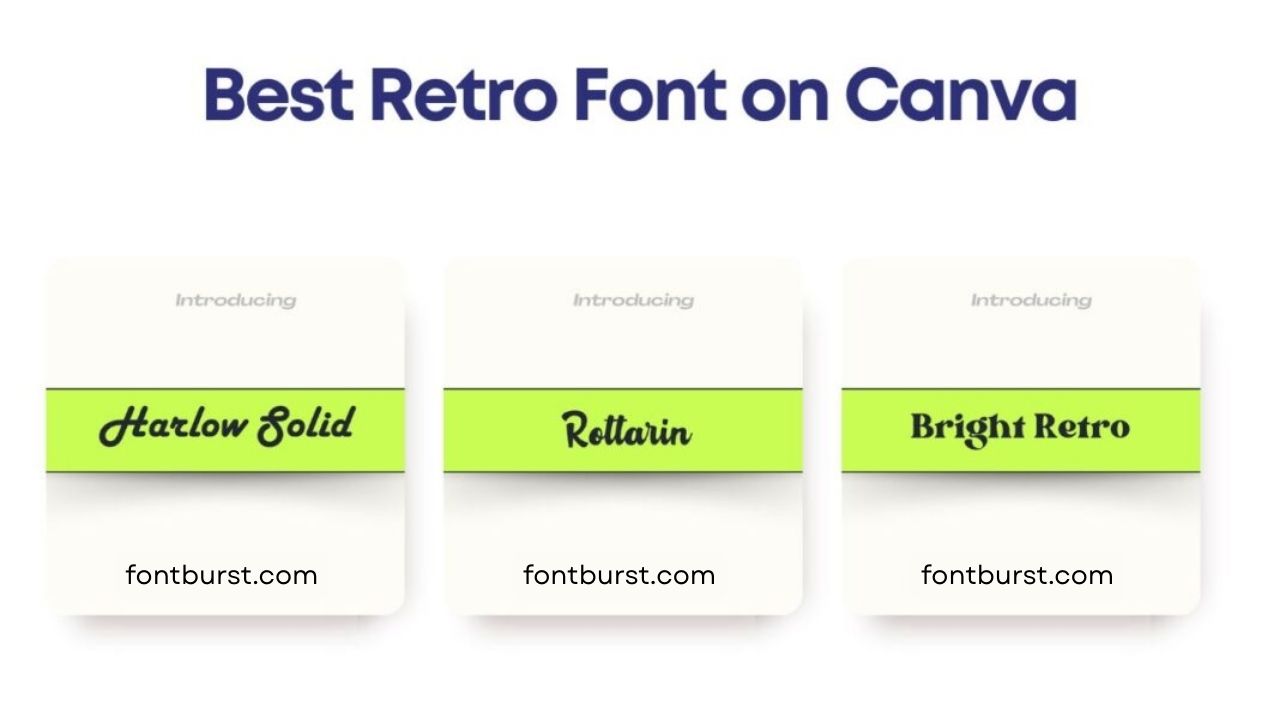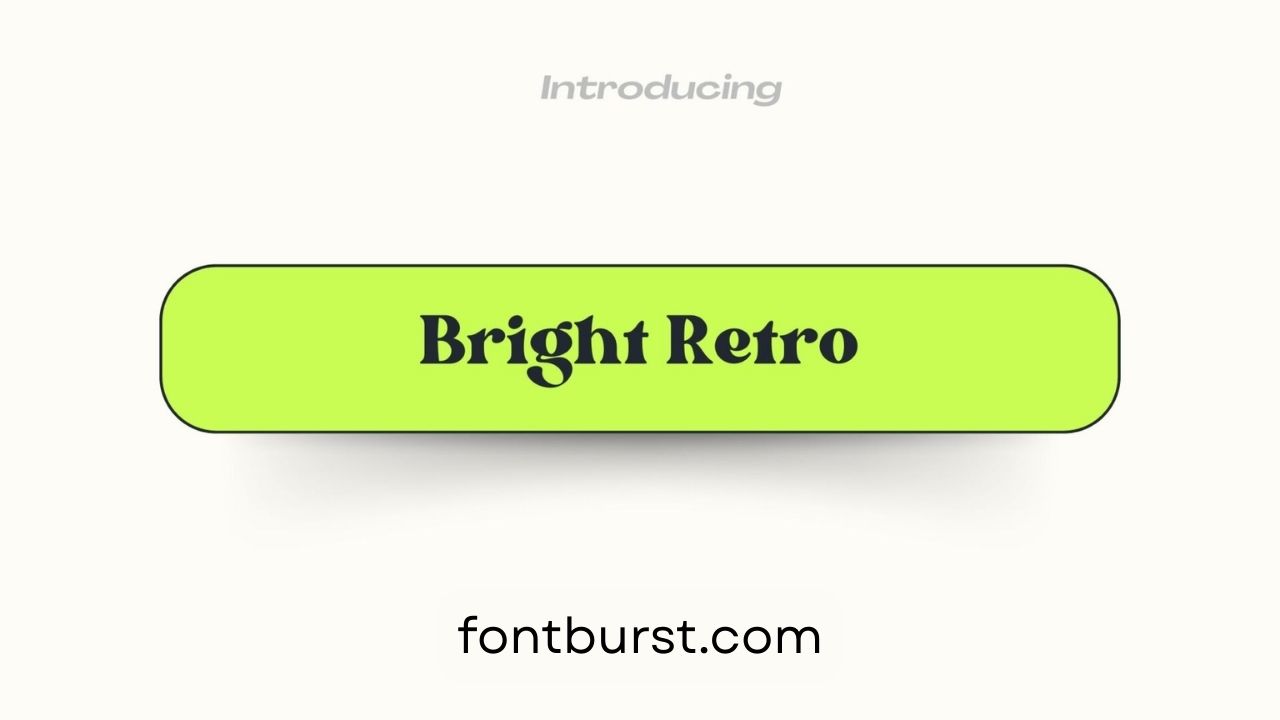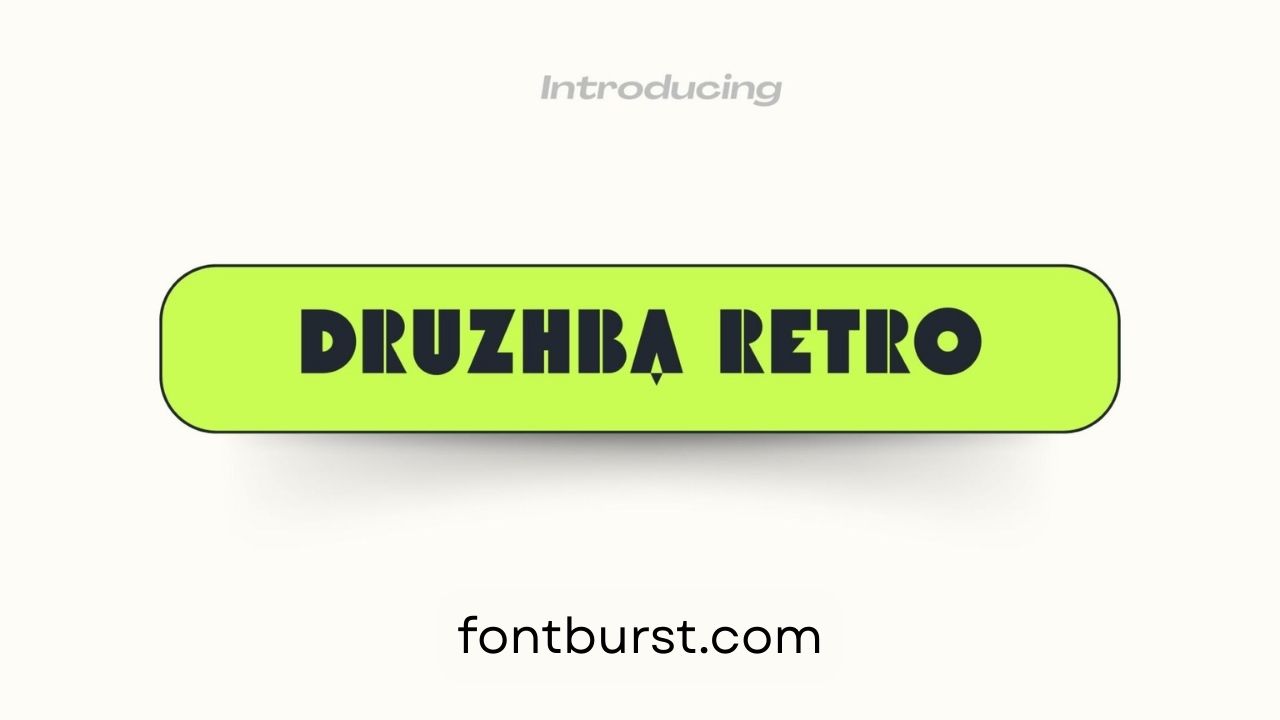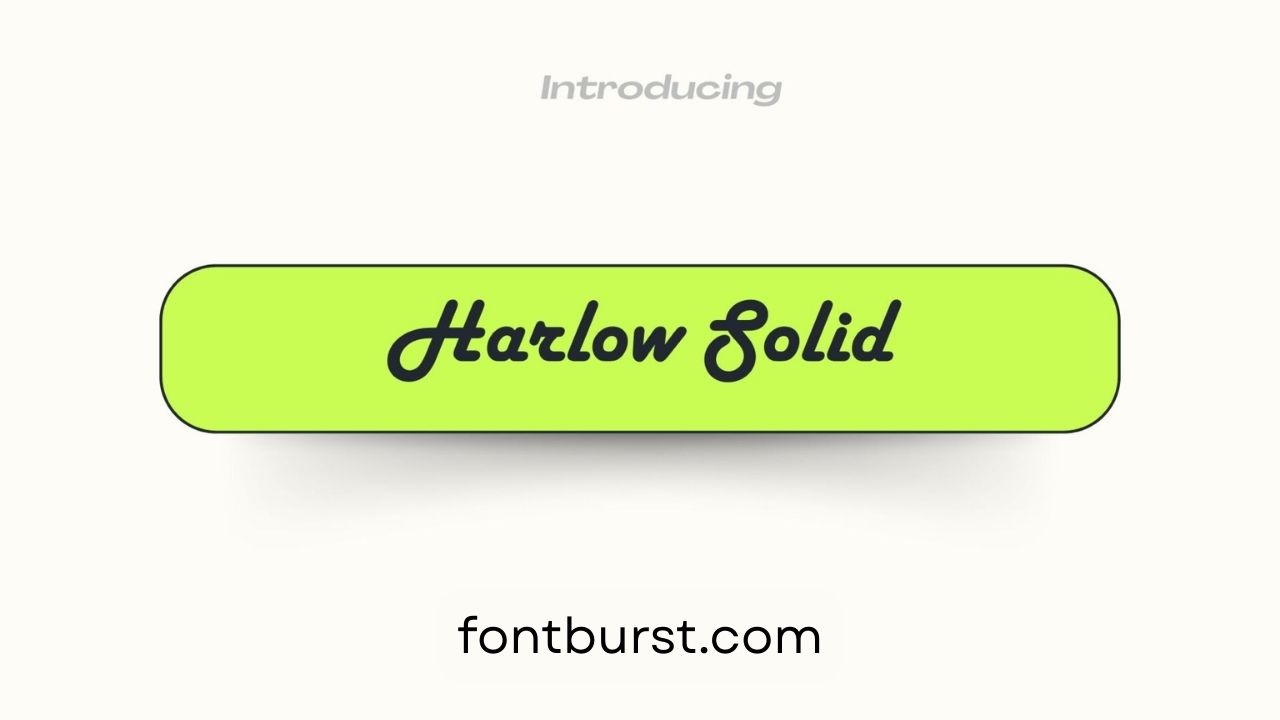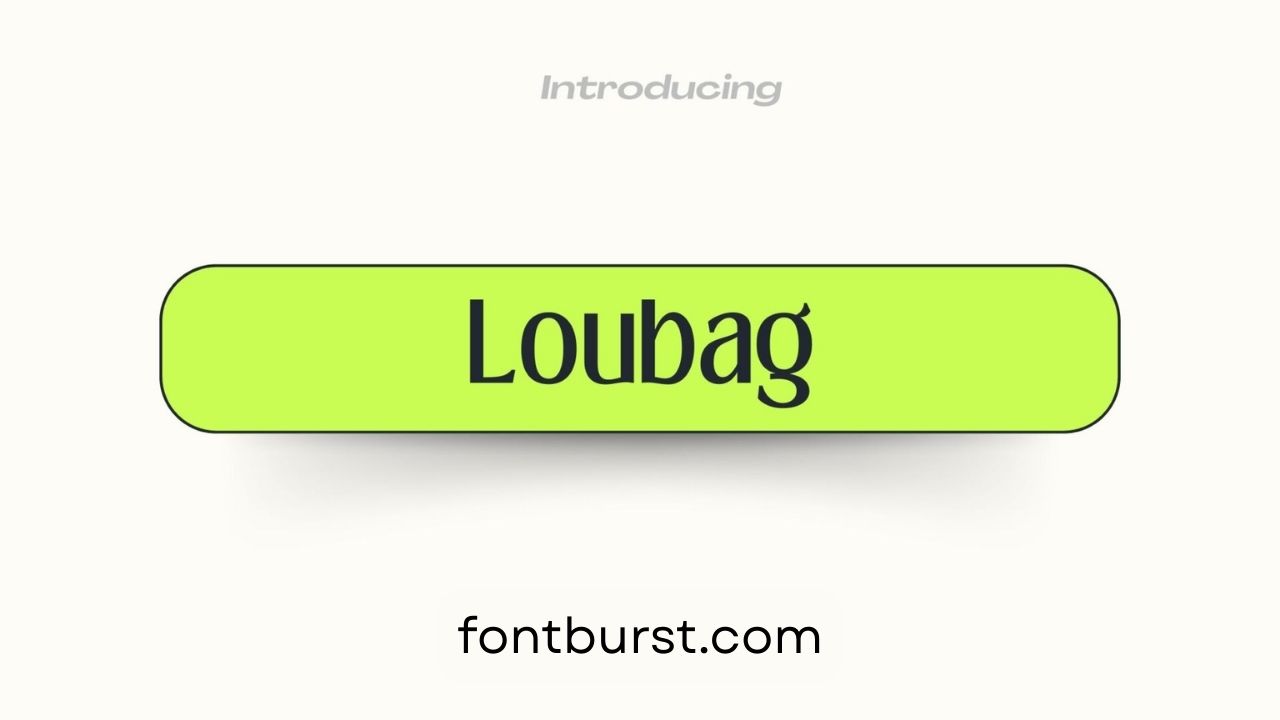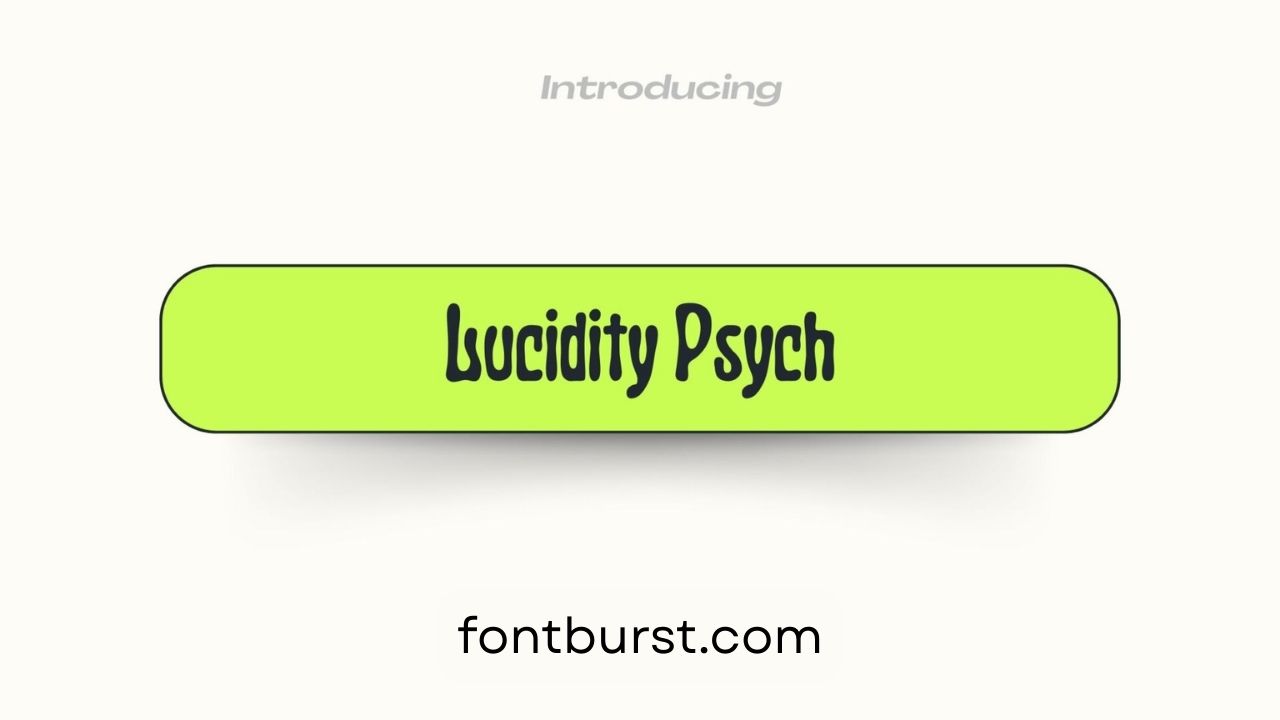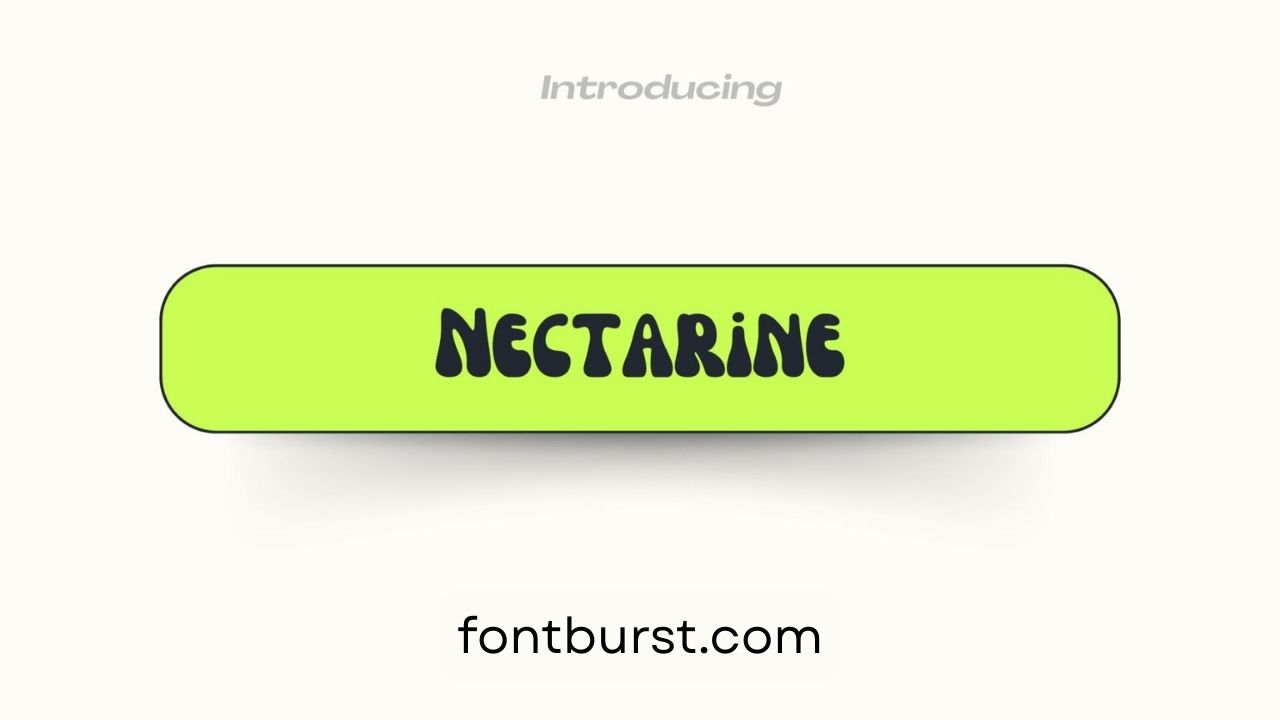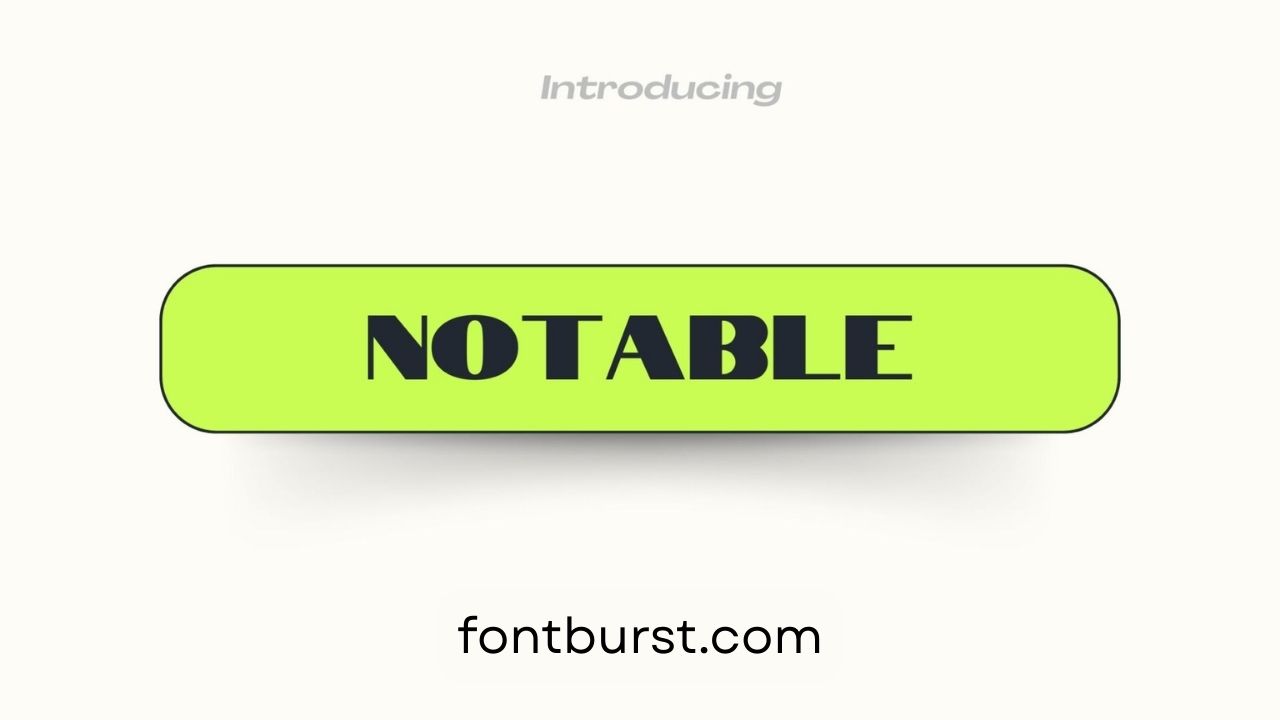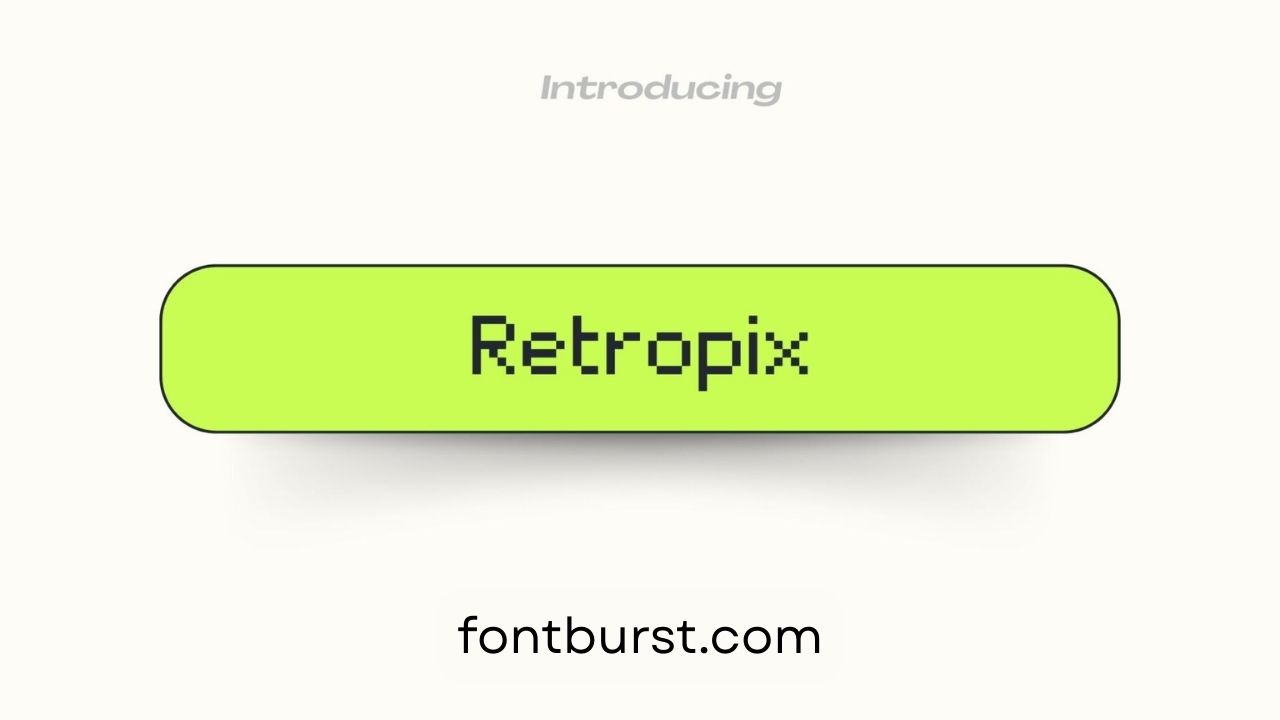
Best Retro Fonts on Canva
Are you looking to give your designs a cool, retro spirit? Retro fonts might be exactly what you need. They restore the style and charm of previous decades, making your work stand out while remaining enjoyable and familiar. Canva has a fantastic selection of retro fonts that can turn any project into a vintage masterpiece.
Retro fonts on Canva are ideal for bringing character to your designs. There’s a font for every retro mood, whether you want the groovy vibe of the 1970s, the bright energy of the 1980s, or the classy look of the 1960s. They can create a nostalgic feel to posters, social media graphics, and other creative works.
Let’s take a look at some of Canva’s best retro fonts and how they can add the perfect vintage flavour to your design.
Harlow Solid Font
Harlow Solid is a smooth and stylish font that feels both classy and playful. It has flowing letters that remind you of old-school signs, making it great for giving a touch of elegance with a fun twist.
Use Cases:
• Titles and headers on event posters
• Vintage-style social media posts
• Classy invitation designs
Notable Font
Notable Font features big, bold letters that look straight from a 70s billboard. It’s strong and eye-catching, perfect for designs that need to make a statement with a vintage vibe.
Use Cases:
• Bold and impactful headlines
• Retro-themed branding
• Posters for concerts or events
Bright Retro Font
Bright Retro Font is full of energy, with a bold and playful style that feels like a throwback to neon signs and diner logos. It’s perfect for projects that need a lively, fun feel.
Use Cases:
• Fun and colorful event flyers
• Retro-style advertisements
• Social media graphics with a playful theme
Retropix Font
Retropix Font brings back memories of classic arcade games from the 80s. It has a pixelated look, ideal for tech or gaming projects that want to channel that nostalgic arcade feel.
Use Cases:
• Gaming-themed posters
• Retro tech branding
• Video game graphics
Druzhba Retro Font
Druzhba Retro Font has a bold and curvy design inspired by Soviet-era graphics. It gives a strong, vintage vibe to your work and is great for designs that want to feel powerful and industrial.
Use Cases:
• Industrial-themed projects
• Strong and bold headlines
• Vintage-style branding
Loubag Font
Loubag Font is quirky and fun, with rounded letters that give off a groovy, 70s feel. It’s perfect for projects that need energy and a playful touch.
Use Cases:
• Groovy event posters
• Playful branding
• Kids’ party invitations
Nectarine Font
Nectarine Font has thick, juicy letters that bring a playful, summer vibe to your designs. It’s great for giving retro ads or packaging a warm and friendly look.
Use Cases:
• Summer-themed designs
• Cheerful retro advertisements
• Packaging for food or beverages
Rottarin Font
Rottarin Font combines vintage and modern styles with sharp lines and fun shapes. It’s versatile and gives a fresh but nostalgic look, working well in many types of projects.
Use Cases:
• Branding and logos
• Event flyers with a retro twist
• Creative social media posts
Roller Coaster Serif Font
Roller Coaster Serif Font has a bold, playful look that feels like an amusement park or carnival sign. It’s full of dramatic curves, perfect for titles that need to grab attention.
Use Cases:
• Carnival-themed invitations
• Eye-catching titles for posters
• Fun and nostalgic branding
Lucidity Psych Font
Lucidity Psych Font captures the groovy, psychedelic vibe of the 60s and 70s. Its wavy, warped letters are great for projects that need a trippy, retro effect.
Use Cases:
• Concert or music festival posters
• Psychedelic social media graphics
• Artistic designs with a retro feel